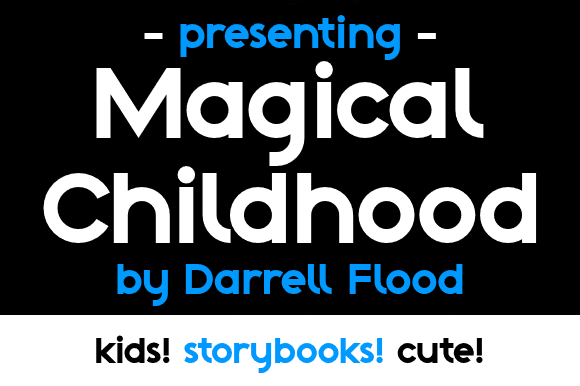
Journey into a world of enchanting typography with Magical Childhood Font, the ultimate sans-serif font family designed to ignite the imagination and bring life to your creative projects. Inspired by the boundless joy and wonder of childhood, this font captures the essence of innocence, playfulness, and boundless creativity.
With its bold and kid-friendly style, Magical Childhood Font is the perfect choice for picture books, children's stories, school settings, and everyday use. Let your words dance off the page, captivating young readers and sparking their imaginations with every turn of the page.
Crafted with meticulous attention to detail, Magical Childhood Font boasts a crisp and punchy design that ensures readability and visual appeal across various platforms. Its carefully balanced letterforms exude a sense of playfulness and energy, making it an ideal choice for designs aimed at a younger audience.
Unleash your creativity and let your imagination soar with Magical Childhood Font. Create playful posters, whimsical invitations, vibrant social media graphics, or eye-catching logos that radiate warmth and charm. The possibilities are endless with this versatile font family.
Step into a realm of magical typography and transform your designs into captivating masterpieces with Magical Childhood Font. Experience the joy of creating content that resonates with children and adults alike, leaving a lasting impression that sparks smiles and ignites the imagination.